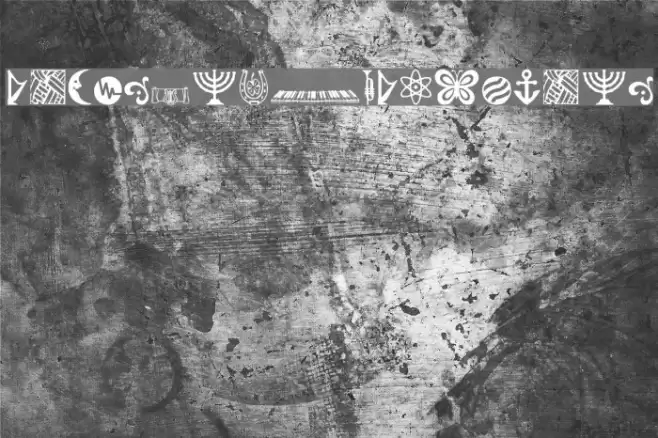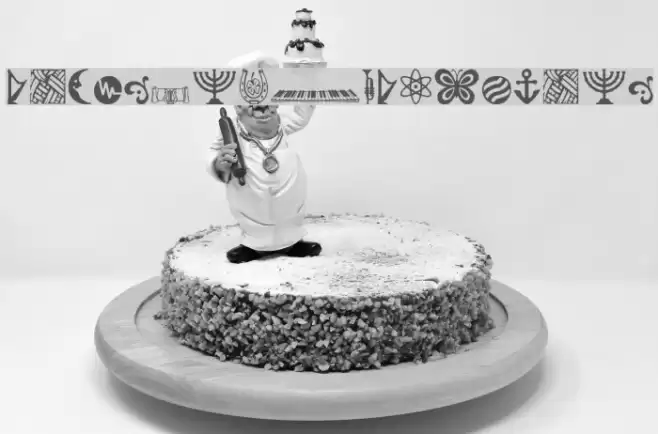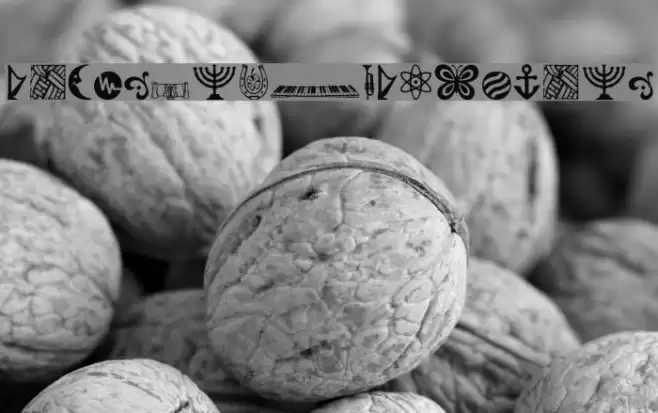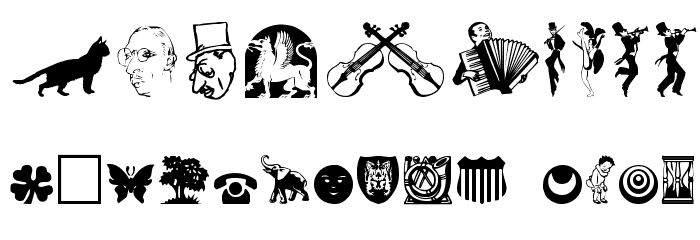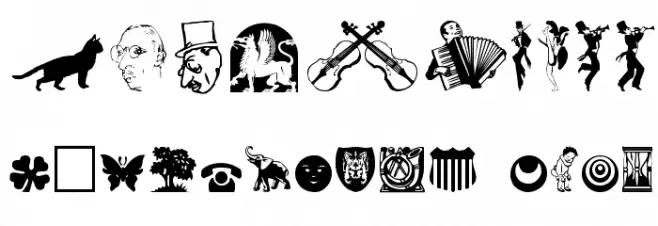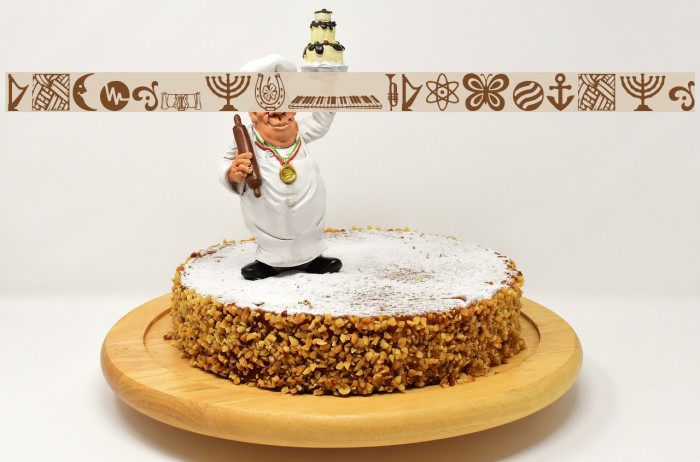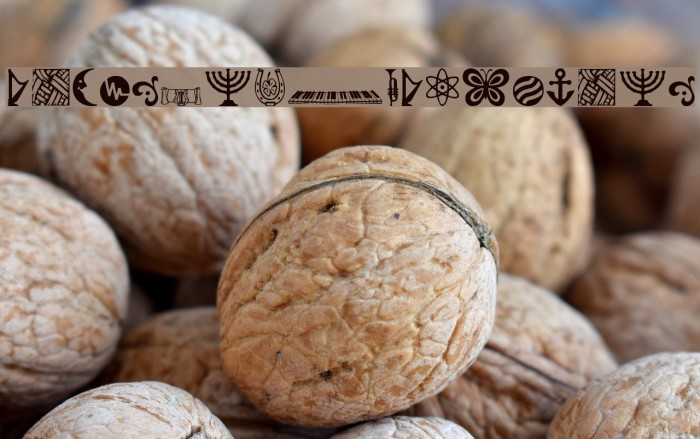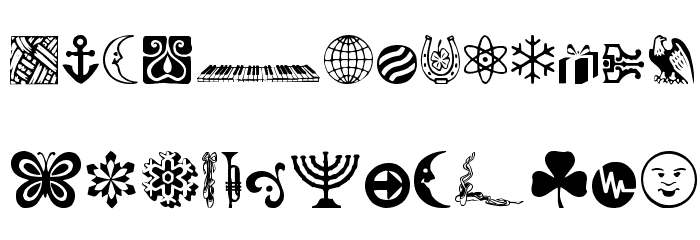
DavysOtherDingbats Font
DavysOtherDingbats Description
A decorative dingbat collection featuring a wide variety of pictorial symbols, including animals, musical instruments, faces, nature motifs, geometric shapes, and whimsical icons. The glyphs are highly detailed, mostly solid black silhouettes with some containing intricate line work and shading, offering a playful and eclectic visual style.
Eclectic and detailed pictorial dingbats with a whimsical, decorative flair from Images & Symbols fonts.
- Proposed Projects: Invitations, greeting cards, scrapbooking, educational materials, playful branding, decorative dividers, and creative projects needing visual accents.
- Overall Style: Decorative, Whimsical, Eclectic
- Use Case: Icons, Decorative elements, Scrapbooking, Invitations